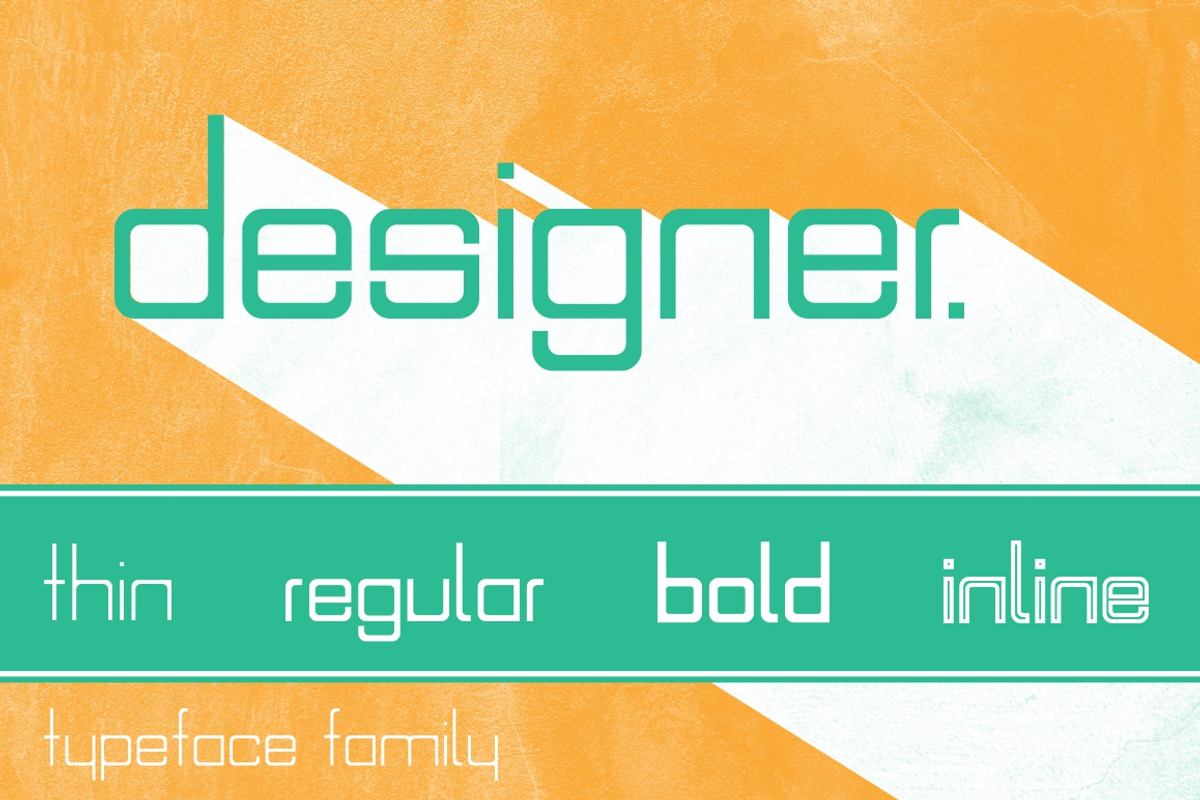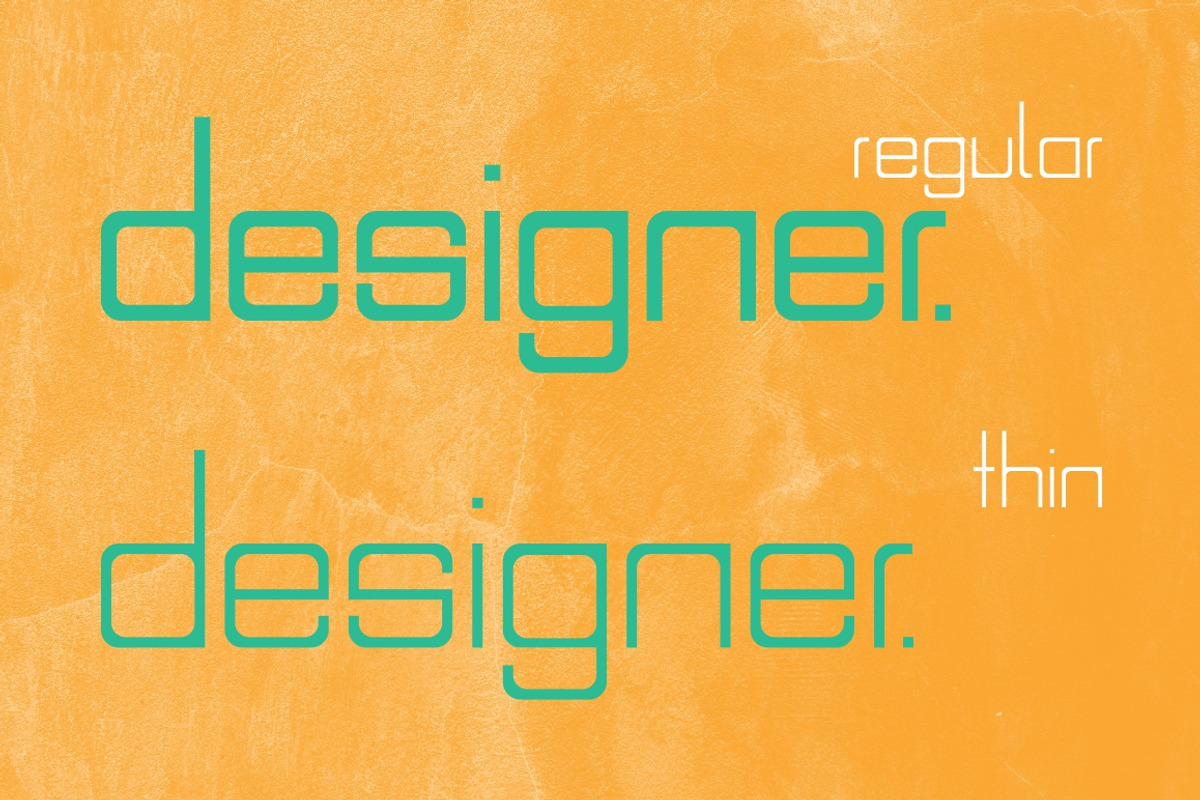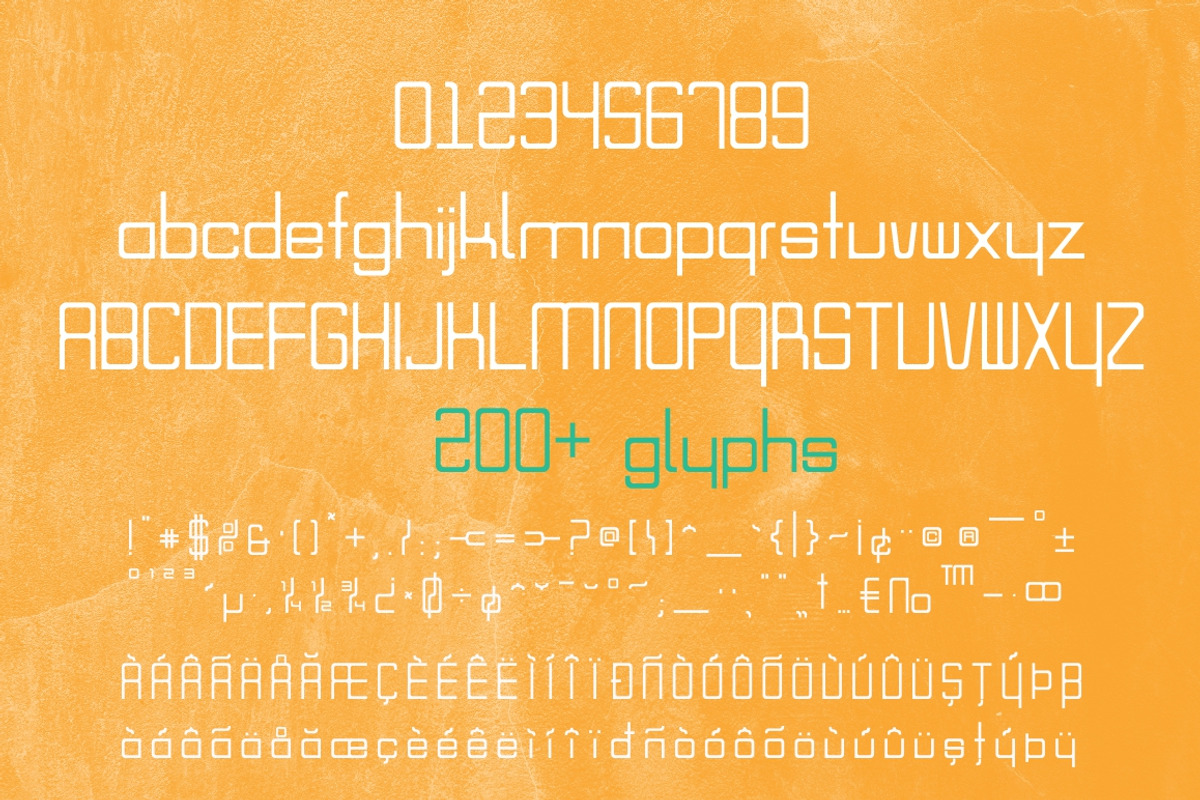
Designer Typeface
Designer Typeface by Monogram is a font selected for branding, posters, packaging, typography.
- 200+ glyphs (uppercase, lowercase, numbers, punctuation & accents).
- Designer Thin
- Designer Inline Regular
- Designer Regular
- Designer Bold
Why Designer Typeface is worth a look
Designer Typeface by Monogram fits naturally into Branding, posters, packaging, typography.